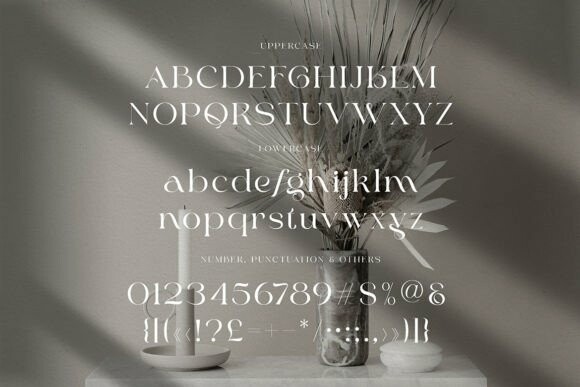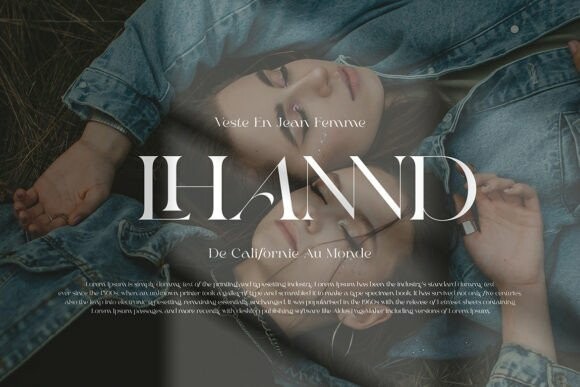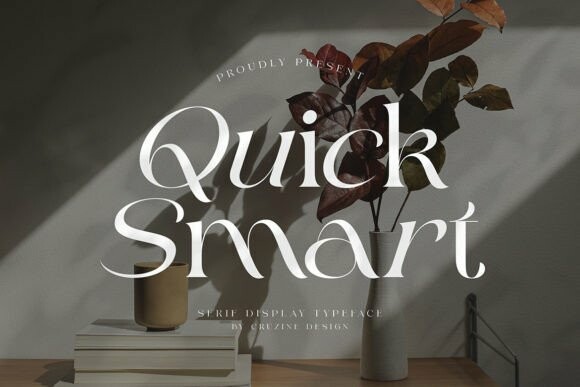
Quick Smart Font
Quick Smart Font is a serif font that is trendy and exclusive, with its unique letterforms and subtle curves. It has a modern feel with its clean lines and geometric shapes. It’s a perfect choice for creating stylish and sophisticated designs and is sure to make any project stand out.